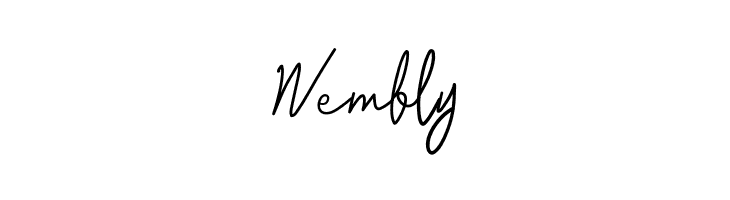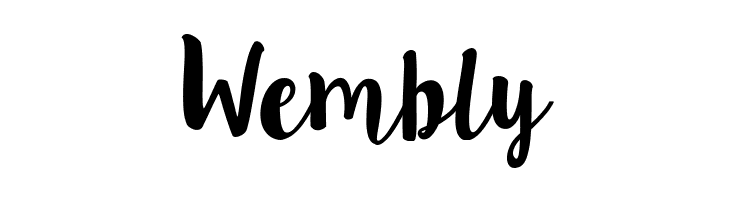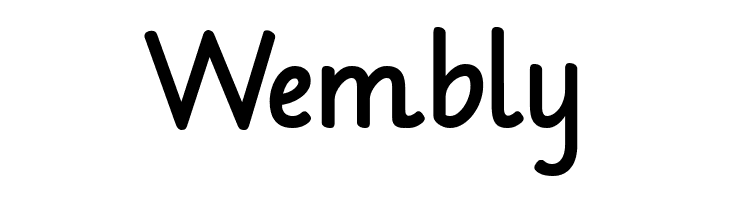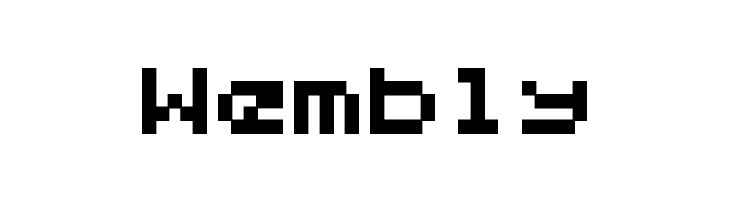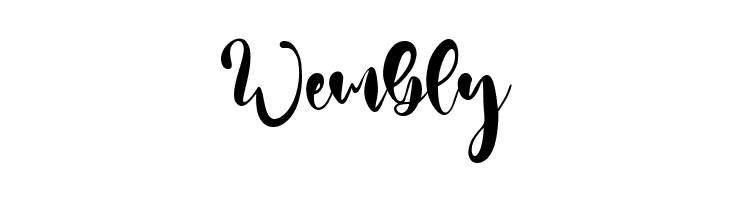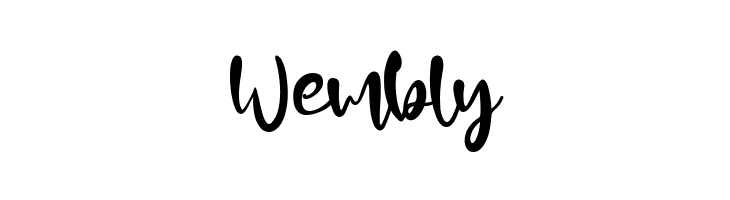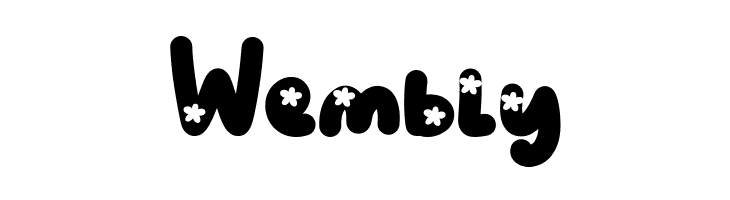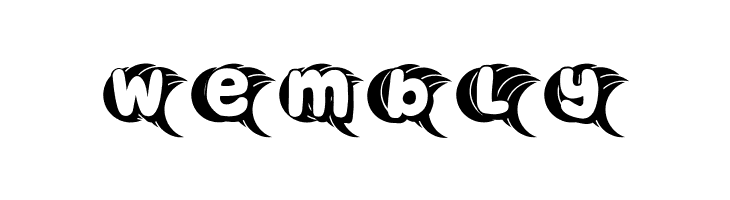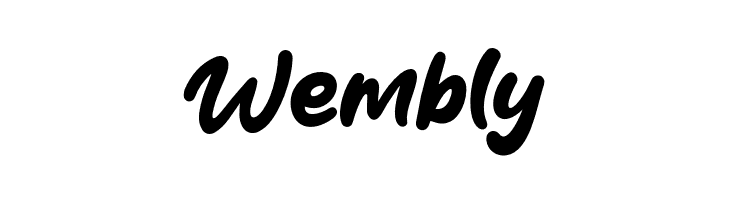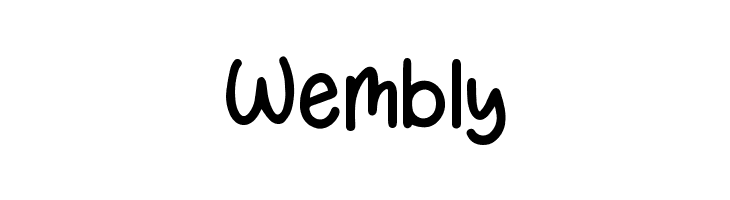
A lively, cursive font with a handwritten touch and elegant flow.
A bold, playful script font with a whimsical and elegant style.
A sophisticated script font with fluid, cursive strokes and elegant flourishes.
A playful, rounded font with a friendly and modern appearance.
A playful and elegant script font with modern, flowing lines.
A bold, expressive handwritten font with dynamic, fluid strokes.
A pixelated, retro-style font with a blocky, digital appearance.
A decorative font with human figure silhouettes integrated into each letter.
An elegant, flowing script font with modern, decorative elements.
A bold, cursive font with elegant loops and a handwritten style.
A playful and expressive handwritten font with fluid strokes and dynamic curves.
A playful, flower-adorned decorative font with bold, rounded characters.
A bold, decorative font with whimsical, swirling embellishments.
A lively, cursive font with bold, expressive strokes and a natural handwriting style.
A bold, playful script font with a lively, handwritten style.
Playful, rounded sans-serif with a handwritten style.
A graceful, handwritten script font with flowing, connected strokes.
A modern, elegant handwritten script with flowing, connected strokes.
Bold, jagged display font with a wild, energetic style.
A bold, geometric font with a futuristic and digital aesthetic.